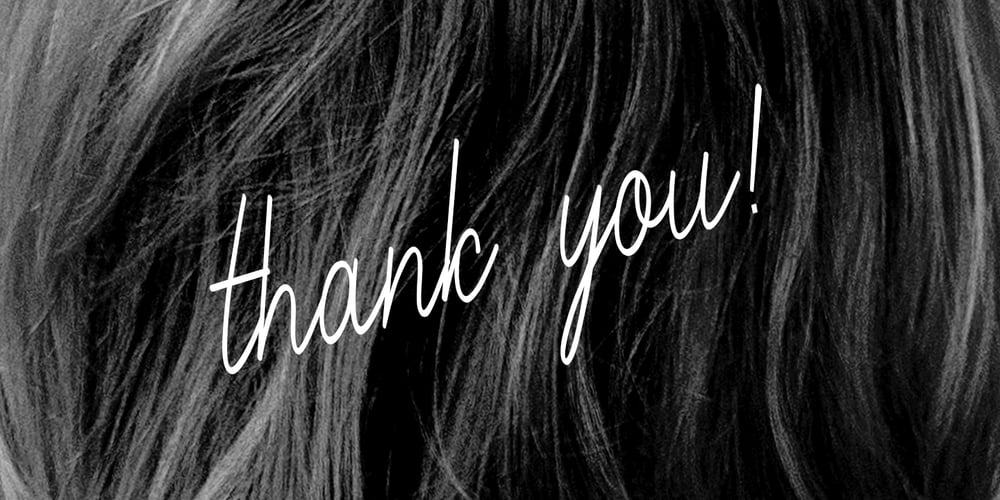
London Handlettering Font Family was designed by Ayah Phoen and published by Axara Creative. London Handlettering contains 1 styles and family package options. The London Signature is an amazing Ellegant Signature font. It was made with perfect precision for every single curve that was build with a horizontal, vertical path & smooth. London signature script font which stylish natural handwritten font with beautiful curve in every single corner. This font is so fashionable & elegant and perfect for photography, branding, signature and logo .